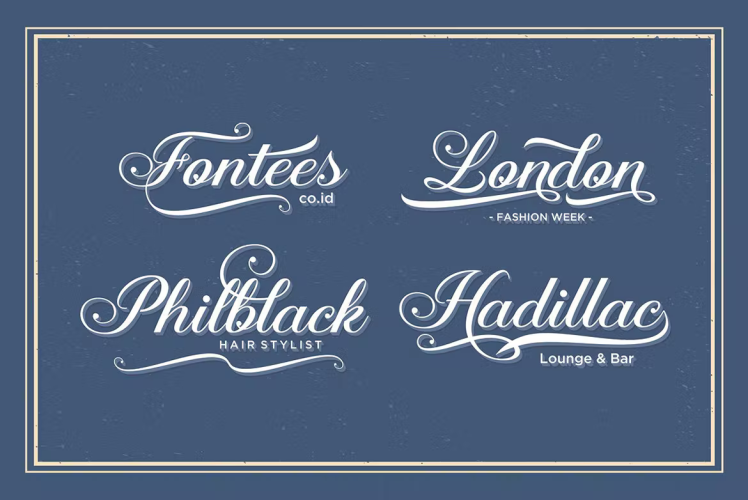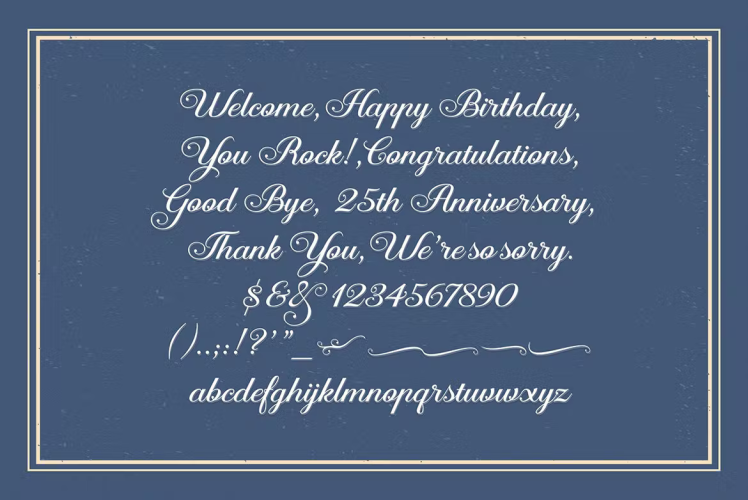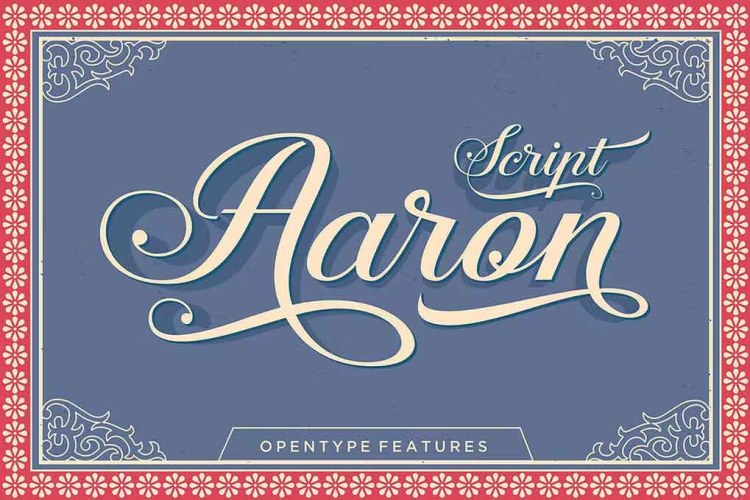
Aaron Script Font
Aaron is highly legible Script typeface, a simply beautiful, classy and elegant typeface. Can be used for various purposes.such as logos, wedding invitation, t-shirt, le…
Aaron is highly legible Script typeface, a simply beautiful, classy and elegant typeface. Can be used for various purposes.such as logos, wedding invitation, t-shirt, letterhead, signage, news, posters, badges etc. Aaron Script features 400+ glyphs and 190 alternate characters, including initial and terminal letters, alternates, ornament, swash, ligatures and multiple language support. which can be accessed using OpenType savvy programs like Adobe Illustrator, Adobe InDesign, CorelDraw X6-X7, Microsoft Word 2010 or later versions. Also supported PUA encoded. Access font characters are compatible with the Silhouette Studio, Cricut Design Space. Simply copy and paste the alternate characters using the Character Map (Windows), Nexus Font (Windows), Font Book (Mac) or a software program such as PopChar (for Windows and Mac).
Where Aaron Script Font works best
Aaron Script Font brings a personal, handwritten warmth to invitations, menus and place cards.
Craft brands — coffee, cosmetics, bakery — use scripts like Aaron Script Font for signature-style logos and labels.
Pair Aaron Script Font with a plain sans for quotes, stories and Pinterest pins that feel handmade.
What is Aaron Script Font good for?
Aaron Script Font is a Script And Handwritten typeface tagged Branding, Craft, Elegant, Readable. It works well for headlines, logos, posters, social media graphics and branding projects that need a distinctive script and handwritten look.